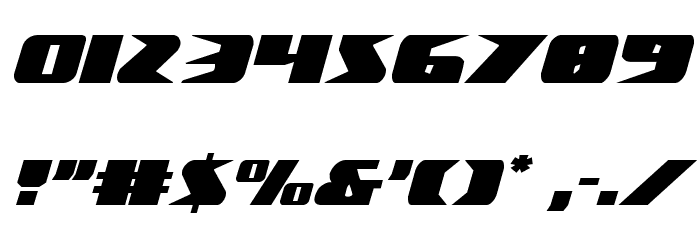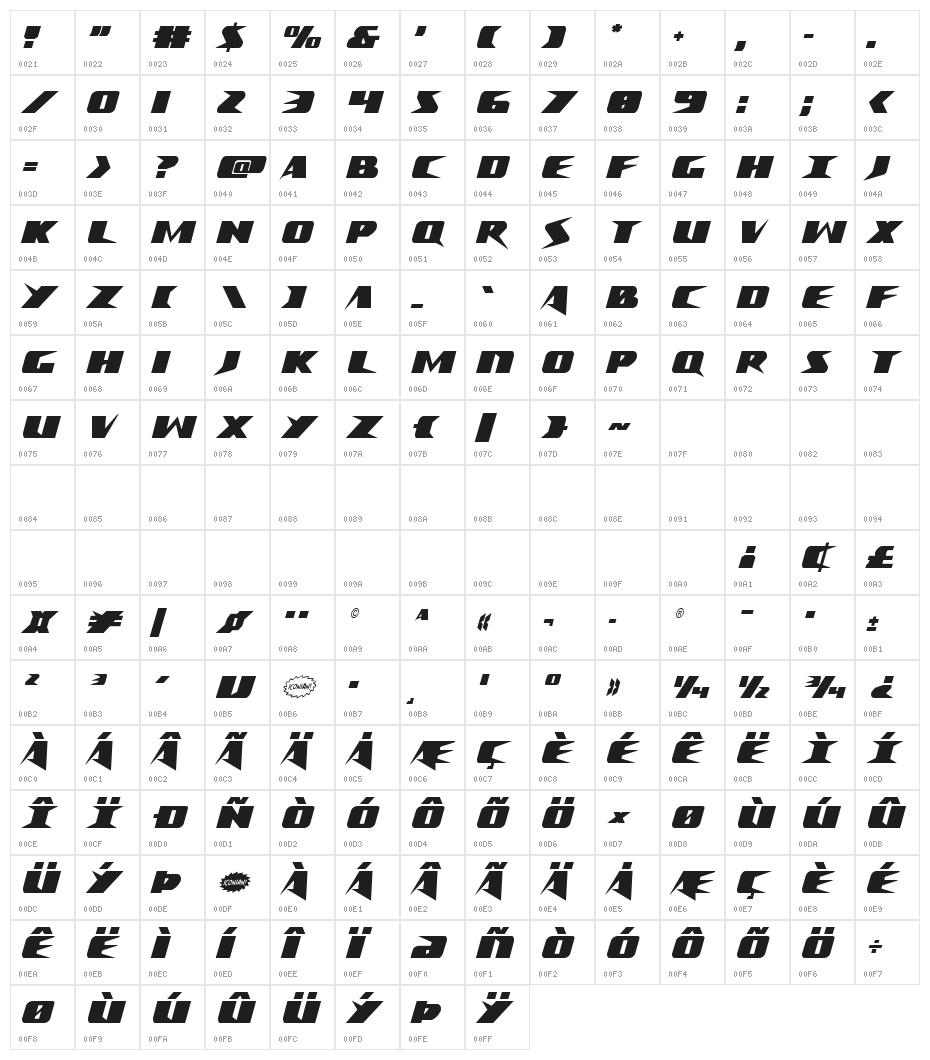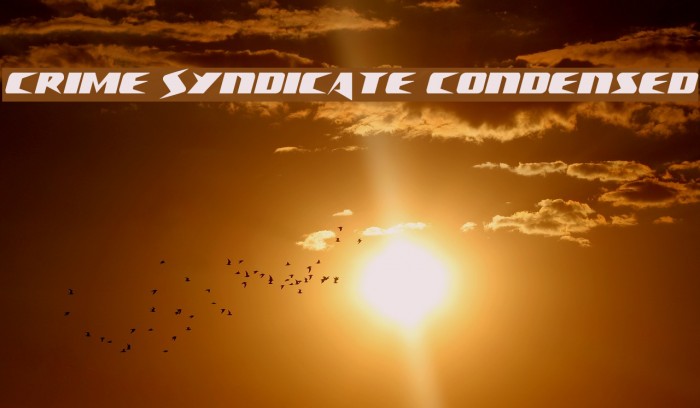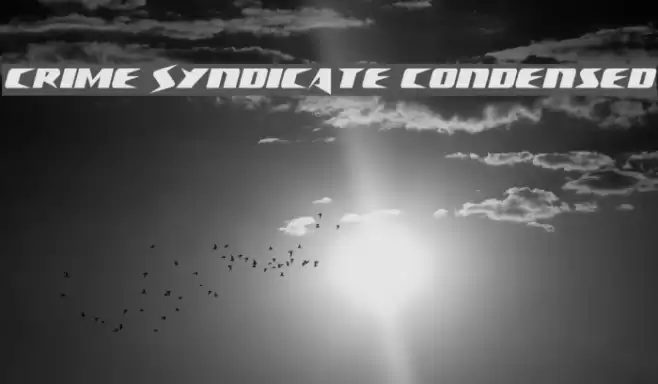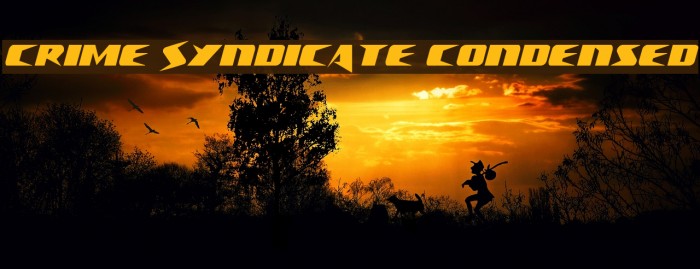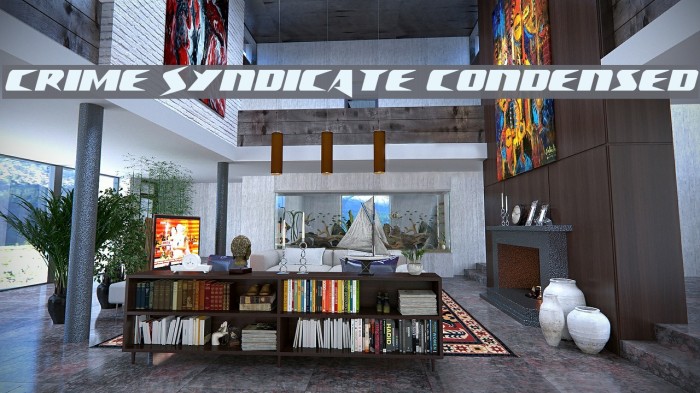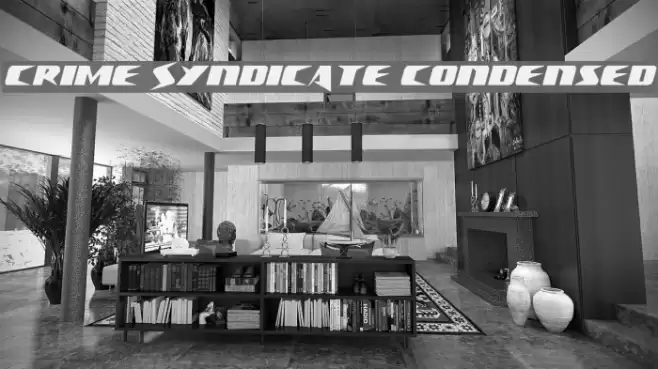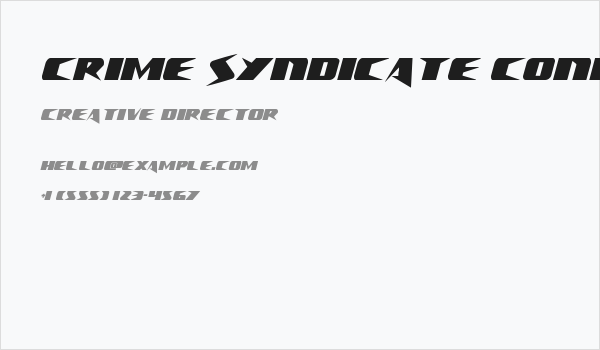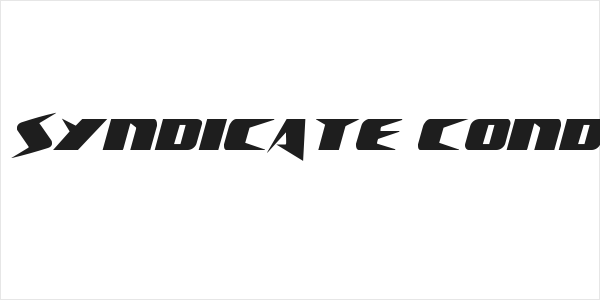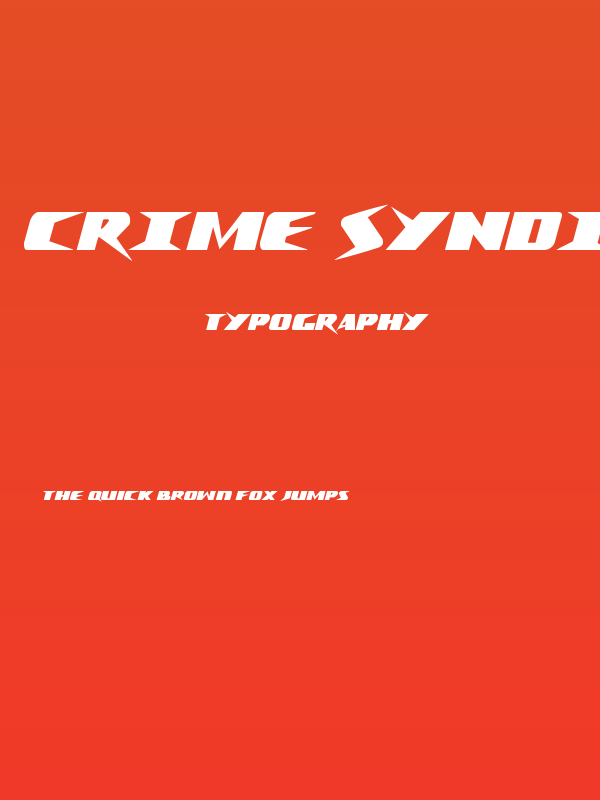
Crime Syndicate Condensed Font
Crime Syndicate Condensed Description
This font exhibits a bold and aggressive style with sharp, angular edges and a condensed form. The characters are designed with a futuristic and dynamic flair, featuring distinct cuts and slashes that give it a unique, edgy appearance. The uppercase and lowercase letters maintain a consistent style, with a strong emphasis on geometric shapes. The numerals and special characters follow the same design principles, ensuring uniformity across the font. The overall aesthetic is modern and impactful, making it suitable for projects that require a strong visual statement.